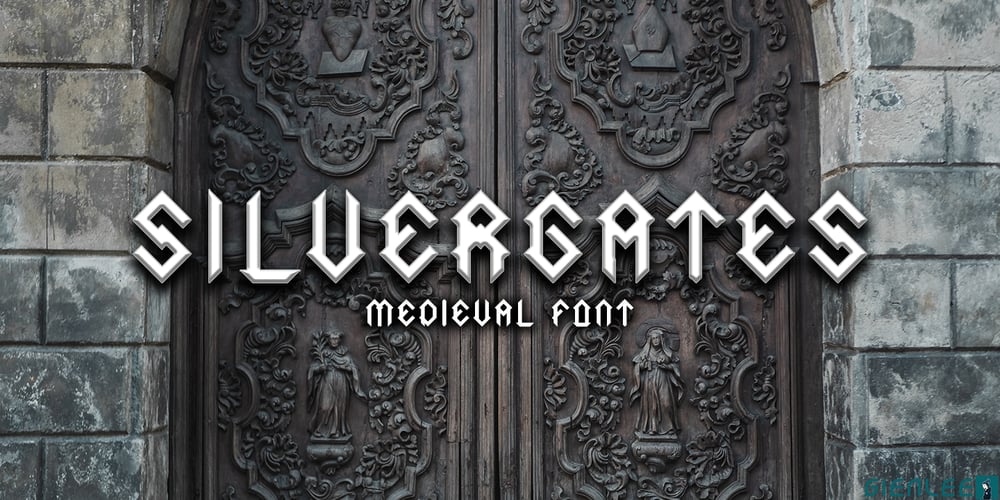
Silvergates Font Family was designed by Genta Putra and published by Gienlee. Silvergates contains 2 styles and family package options. Yo! Welcome to gienlee cartoon, design, and other artworksSilvermoon is Medieval Font. Commonly used for middle ages those combined with the beauty of crystal and silver stone.Item Description Standard Glyphs (Uppercase, Lowercase, Numeral & Punctions) Works on PC & Mac No Special Software is required File Description Silvergates-Regular OTF file Silvergates-Line OTF file enjoy your download